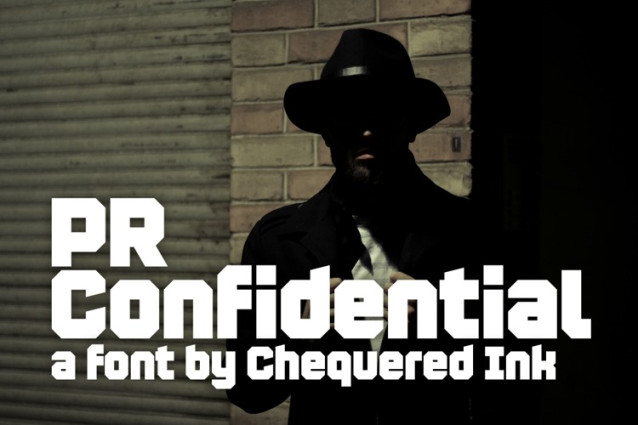
PR Confidential Font
PR Confidential Font is a bold, high-impact display font meticulously crafted by Chequered Ink. Characterized by its heavy weight and sharp, geometric angles, this typeface exudes a modern and commanding presence. Its industrial aesthetic makes it an ideal choice for headlines, posters, and branding projects that require a strong, unmistakable voice. Whether you are designing for tech, gaming, or urban streetwear, PR Confidential delivers a sense of authority and professional edge to any visual composition.